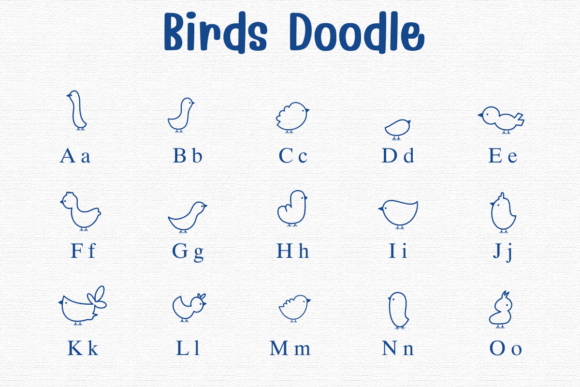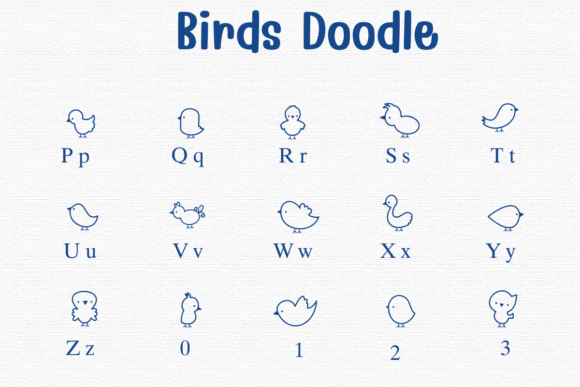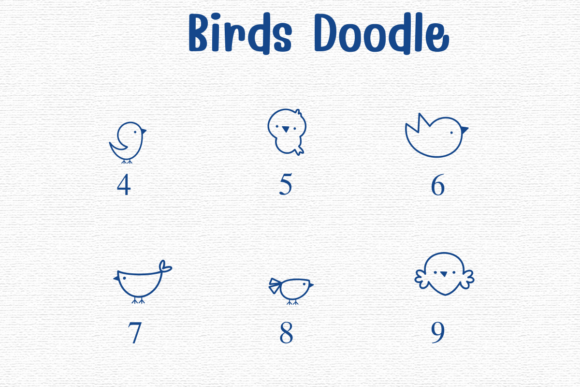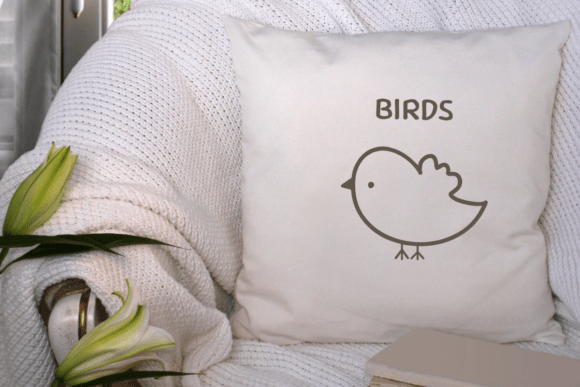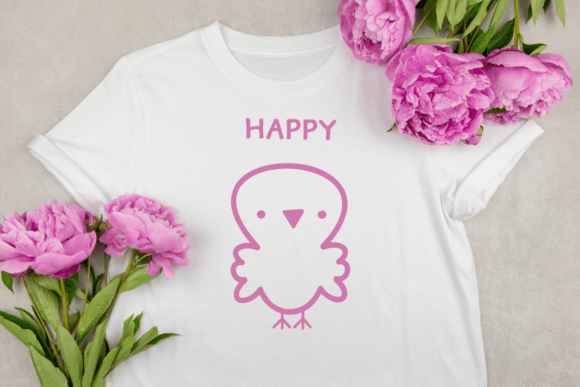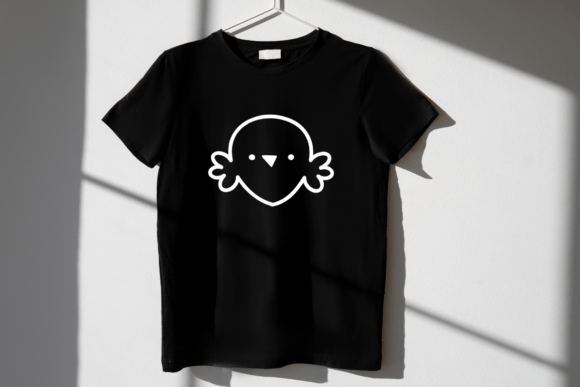
Spring into Creativity with Birds Doodle Font
As a designer, have you ever found yourself stuck in a creative rut, desperate for a spark to ignite your next project? For me, it’s often a walk through the park or a moment spent observing the birds in my backyard that gets the creative juices flowing. And now, I’m excited to share with you a font that captures the whimsy and charm of our feathered friends: the delightful Birds Doodle Font.
This delightful dingbats font features a wide variety of charming bird illustrations, from tiny songbirds to quirky chicks. Whether you’re working on a spring-themed project, creating educational materials for kids, or simply looking for a fun way to add some personality to your designs, Birds Doodle Font is the perfect addition to your toolkit.
- Unique Characteristics: Whimsical, hand-drawn design with a natural, organic feel that adds a touch of personality to any text.
As a designer, I was excited to dive into the Birds Doodle Font and see what it had to offer. Overall, I found it to be a charming and whimsical font that could add a touch of personality to any design project.
- ✨ The font’s playful and hand-drawn feel is perfect for creating a lighthearted and approachable atmosphere.
- ✨ The Birds Doodle Font comes in a range of weights and styles, making it versatile and easy to use in different design contexts.
- ✨ The font’s unique character set, including special characters and symbols, adds to its charm and makes it stand out from more generic fonts.
- ⚠️ The font may not be the best choice for formal or professional designs, as its playful feel may come across as unprofessional in some contexts.
- ⚠️ Some users may find the font’s irregularities and imperfections to be distracting or difficult to read in certain situations.
Overall, I think the Birds Doodle Font is a great addition to any designer’s toolkit. While it may have some limitations, its unique charm and versatility make it a great choice for a wide range of design projects.